Who was Francisco Otta?
It's difficult to begin to describe what it was like to work on a project as long as Otta, since it wasn't a constant development but rather an intermittent one over the years. Well, I can say that it's a long-term project that goes against all design strategies, something I appreciate at PampaType because it goes against the grain, that there is no “one” way to do this job. It began back in 2015, before applying for a state grant in Chile to update Educación tipográfica (Typographic Education), a book about typography, but which became another book... What else could be said about typography that hasn't already been written? Why did I think it was worth doing another book on typography, and with a special font for it?
At the beginning of this century, when I was looking for books to create notes for a typography course, I discovered one that caught my attention because of the diversity of information on writing in different cultures, a book from 1974. When I discovered that book, I wondered how someone in those years could know so much; it was like a kind of paper Wikipedia on writing. The title of that book is The Alphabets of the World, published by an artist of Czechoslovakian origin (formerly Czechoslovakia, which today corresponds to the Czech Republic and Slovakia) who became a naturalized citizen in 1950. He arrived in Chile in 1940, fleeing the Nazi party because of his Jewish roots. His family died in the Auschwitz camps. 1 The city of Pilsen (in Czech, Plzeň) saw the birth in 1908 of František Otto Bergmann Troller, or Francisco Otta, as he was known in Spanish. He was a traveling artist and curious humanist. Here in Chile, he taught lettering to some friends, who later created tipografia.cl, a project to digitize the country’s vernacular scripts, in the late 1990s.
Spreads from *The Alphabets of the World* by Francisco Otta, University extension publications, University of Chile.
The reason this book is not well known in Chile is because it was never publicly released as a result of the coup d'état in 1973. I came across it in photocopied form, produced by an academic niche interested in letter design and typography. Perhaps very few people have an original copy. It has a subtitle that reads “Graphic Communication from the Phoenicians to the Computer” and contained samples of writing from different cultures, some of which were probably written by the author himself. I was fascinated by these unintelligible but exuberant scripts, especially the Arabic ones.
In tribute to him, I took his name for the font we are publishing here. It was also an excuse to venture into a world of writing unknown to me and, at the same time, an opportunity to design a font especially for a book that connects calligraphy, lettering, type design, and typography. Obviously, my enthusiasm prevented me from realizing at the time the abyss I was about to peer into.
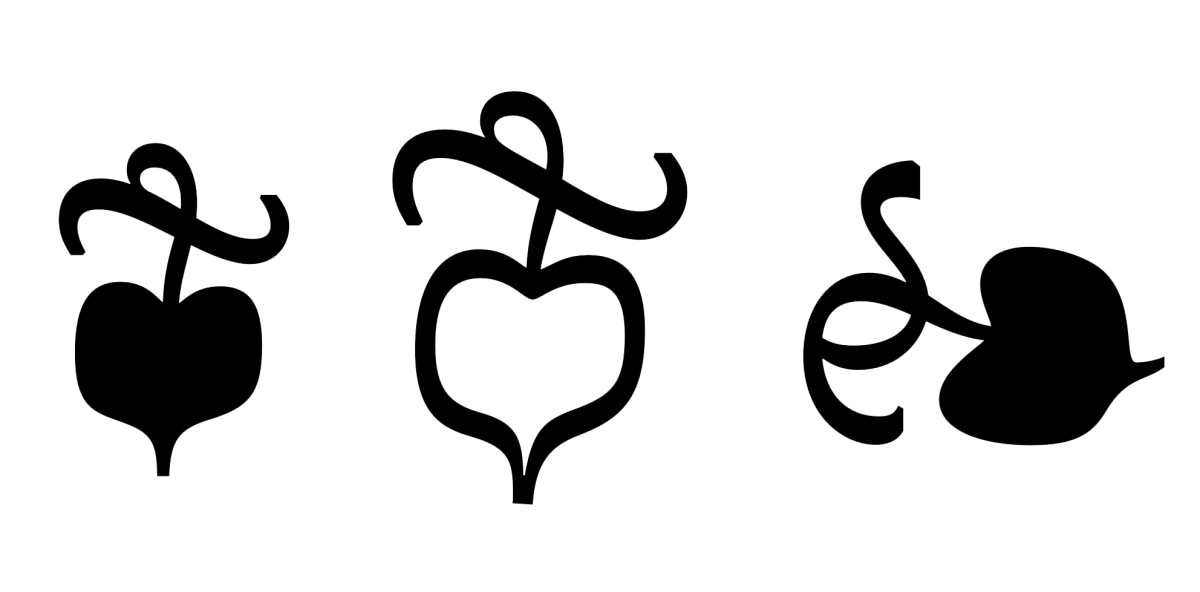
Print of a family tree of the alphabet created by Francisco Otta [undated]. Author’s collection. The leaves of this tree inspired the design of Otta’s fleurons.
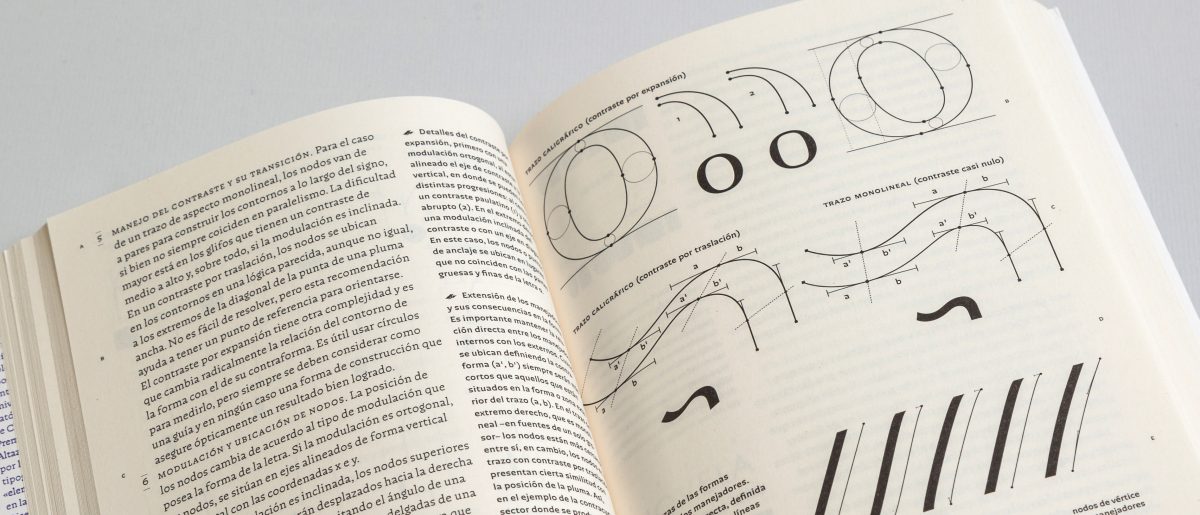
The most complicated part of presenting a font for me is thinking about the accompanying text that declares the design intention. In the font marketing industry, you find that most of the time they don’t make sense, with attributes that are hard to see, almost like reading wine reviews, which seem like low-quality poetry. They’re just letters. In display fonts, it may make more sense to develop a more sophisticated idea. For prose reading fonts, the more sober the better for me; the more adjectival, the more suspicious I become. This is where I find meaning in the criticism of their incessant production, of why it is worth making a typeface when there are so many already in existence. The answer may lie in what the text that presents it says. It is enough to do a comparative exercise to corroborate the idioms and clichés that are written. I include myself in this. However, here at PampaType, there is a concern for more elaborate development, with the intention of sharing lessons learned and reflections. Not just selling.
Vector drawing that looks hand-drawn?
For some time now, I have observed the idealization that some people have for letterforms based on geometric figures, as if they were trying to represent perfection. This idea reached its peak in 1928 with Futura, which established a stylistic category in sans serif fonts. Poor Paul Renner could not have imagined how badly his concern for contemporary type design would age, becoming a cliché of modernity, “perfection,” and geometric balance, transformed into a sales pitch. Every year, geometric sans serif fonts are designed ad nauseam, probably because people still believe in that promise. Anyone who has tried to make letters based on regular geometry will notice that it doesn't work; it looks strange, with uneven thicknesses, even with some letters looking bigger than others, and subjecting them to a grid only makes the job of spacing them worse. The eye does not deceive, but the obsession with the grid does. To confirm what I am saying, compare the thicknesses of Futura and you will see that they are not all the same; the uniform thickness subtly disappears. Thus, with my obsessions in vector drawing, I did not want to promote that “deception” of geometric perfection and I wanted to distance myself as much as possible from it with my drawing in Otta.
The perfection of drawing vs. the typographic idea
When I purchased two variants of Trinité, a font designed by Bram de Does, to use in the typography book as a worthy example to contemplate—because I find it difficult to surpass in style—I noticed that the font contained a rather austere character set compared to its high value. I understood why, because it was drawn entirely by hand and then digitized with Ikarus, a software program that used a mouse with different buttons to mark the points of the computer drawing as it traced the contours. I opened the file to review the drawing and noticed that it had a few small errors in a couple of letters. At first, I felt frustrated, because I am demanding when it comes to the drawing of my letters (which may be why I am never satisfied) and those of the students in my classes.
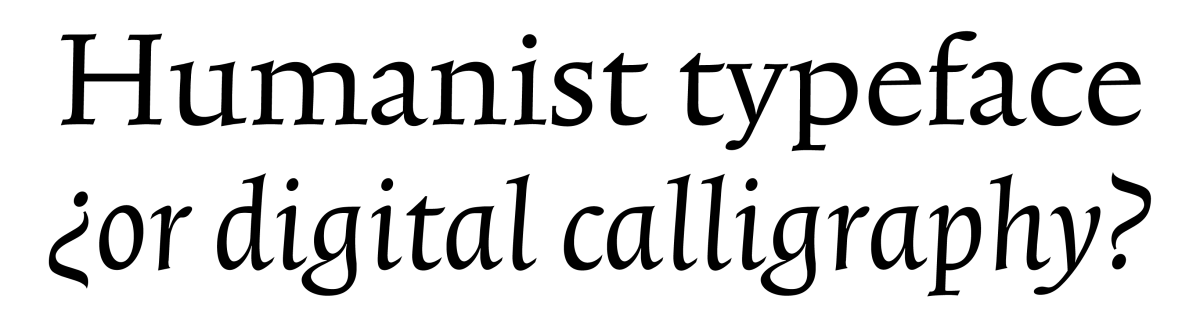
Trinité, epic design by Bram de Does, 1979–1982.
After a moment, I said to myself, who cares! The design of that typeface is too well done: a “calligraphic” letter in a typographic form, to consider that detail relevant. I don’t like the discourse of looking for errors in design as a human act; I think it’s complacent with mediocrity. For me, the typographic idea of composing prose text with vector letters that look handwritten is very difficult; it requires more dedication. I don’t know if I achieved it in Otta, but at least I managed to make it look non-standardized or bland. My intention with this font was to seek the irregularity of the demanding craft of hand drawing, and vector drawing is another type of drawing that has nothing to do with the analog, that’s the difficulty. To do this, I was inspired, in part, by what Gutenberg did with his project to produce handwritten books more quickly. They had to look handmade too, so he duplicated letters in metal types with slight variations so as not to be discovered. In the end, the poor guy got caught and, on top of that, he was swindled.
A plan for the calm irregularity of the text
The plan was to make the letter look “irregular” (which is not the same as messy or poorly done), making it irregular in conjunction with other letters requires several attempts. I can’t find a more accurate concept, perhaps something similar, although not the same, would be the Japanese wabi-sabi, but that has more to do with use and the passage of time. Here it is that symmetry that Walter Kaech spoke of, which is not perfect, like a person’s face.